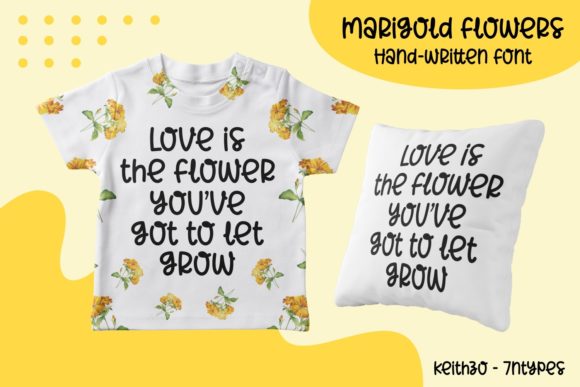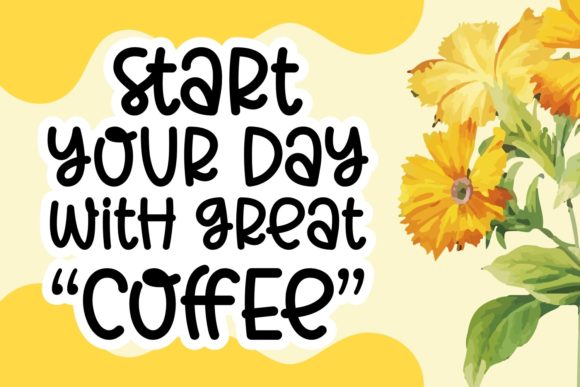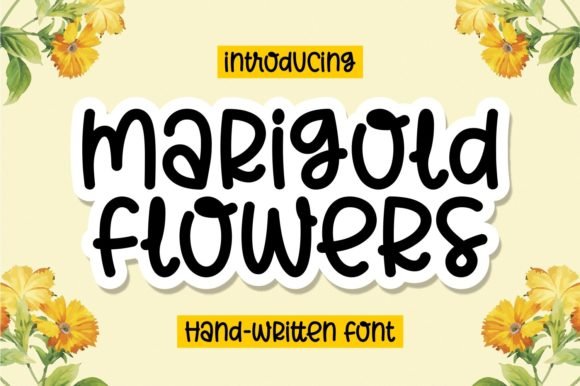
Introduction to Marigold Flowers Font
Marigold Flowers is a cute, cheery and friendly handwritten font.
Key Features of Marigold Flowers Font
Why Choose Marigold Flowers Font?
Marigold Flowers Font offers exceptional quality and versatility, making it a valuable addition to your design toolkit. Whether you’re creating for personal projects or commercial use, Marigold Flowers Font delivers professional results.